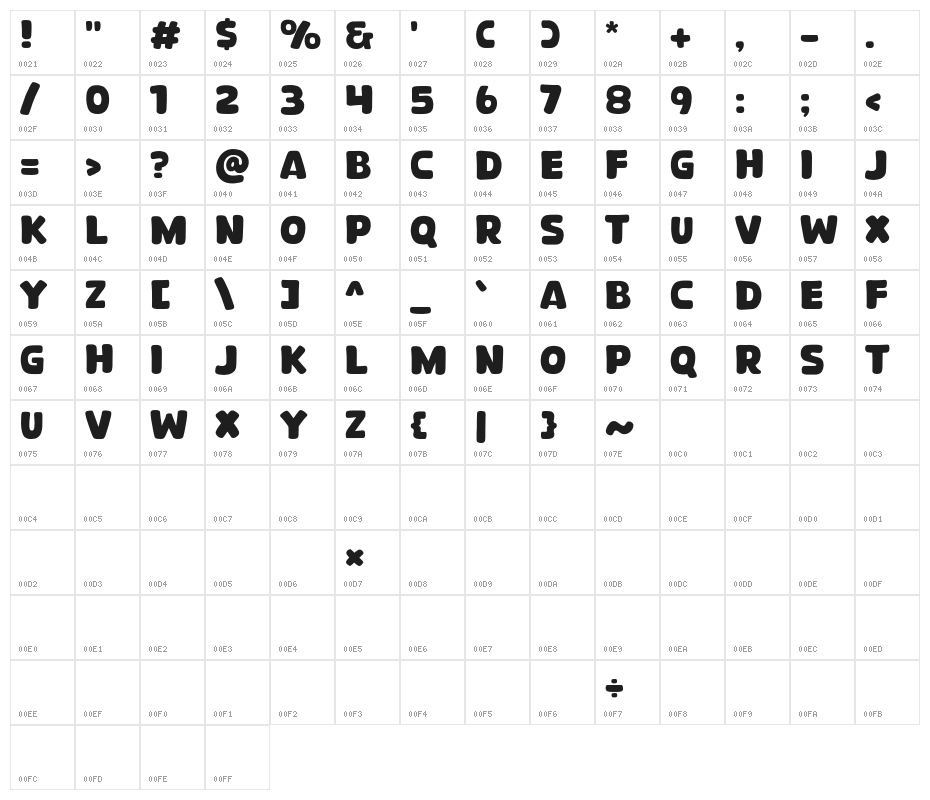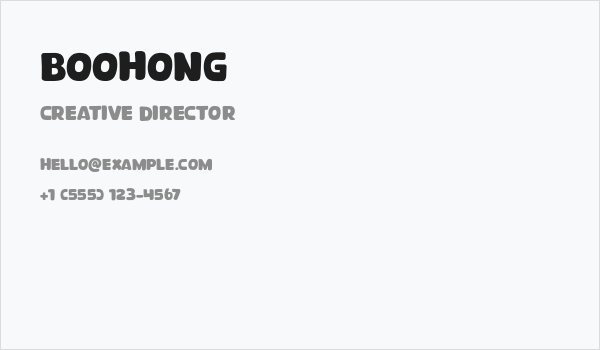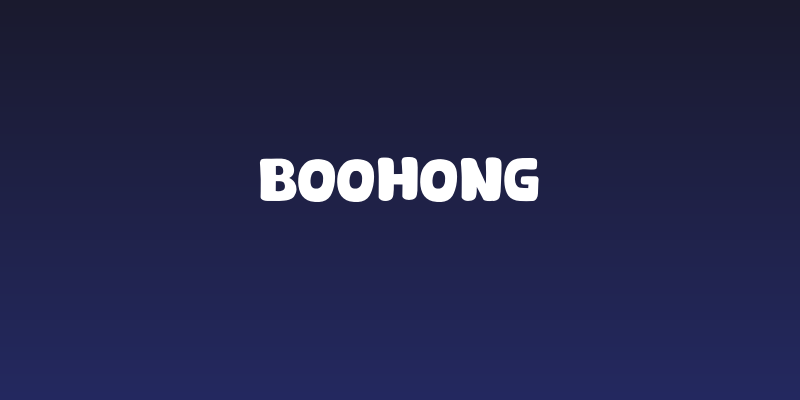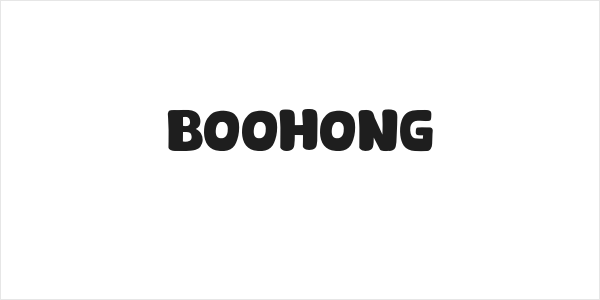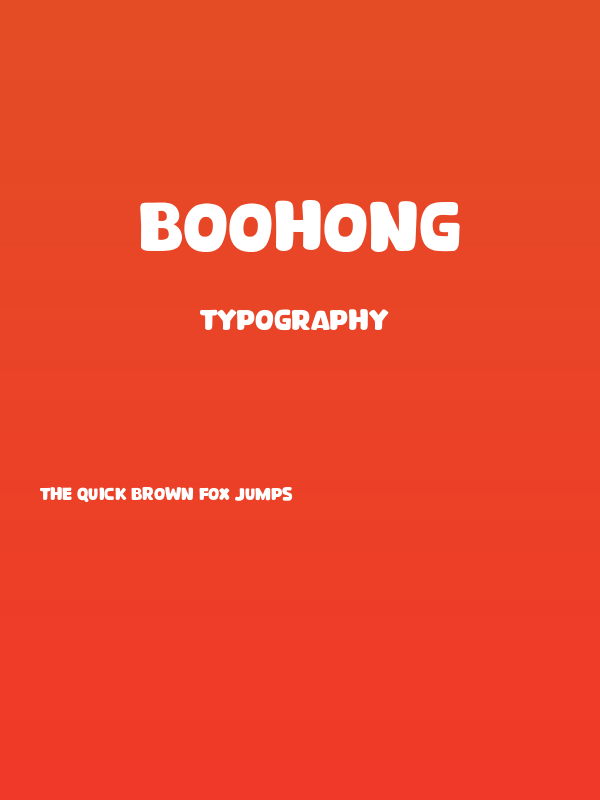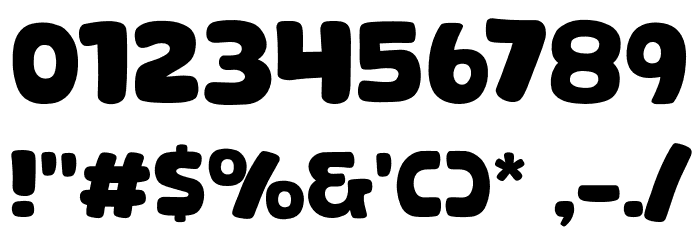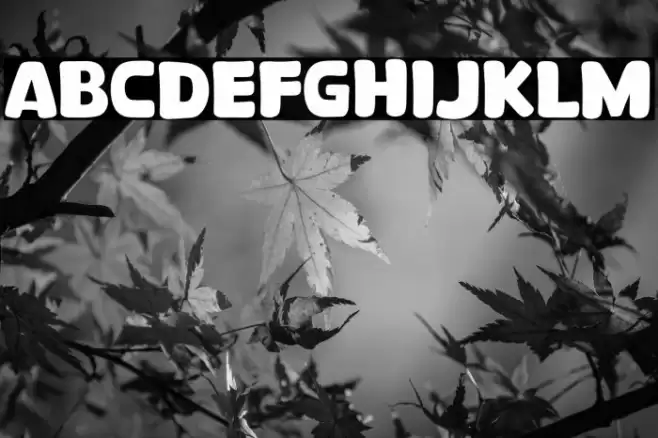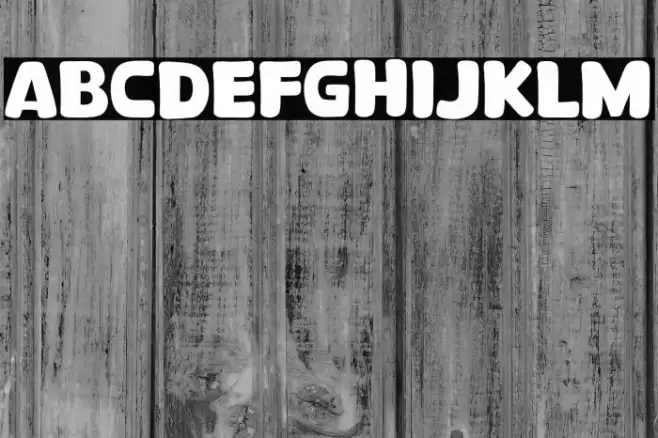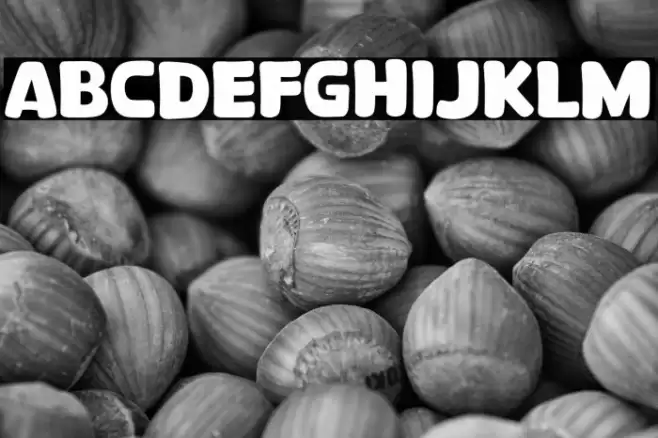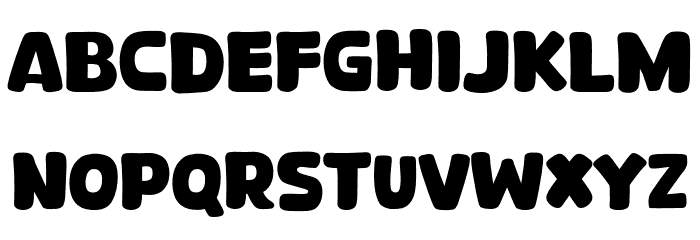
Boohong Font
Boohong Description
This font features bold, rounded characters with a playful and friendly appearance. The letters are uniformly thick, giving them a strong presence on the page. The rounded edges and consistent stroke width contribute to a soft, approachable look, making it ideal for designs that aim to convey warmth and friendliness. The numerals and special characters maintain the same rounded style, ensuring visual harmony across all elements. This font is particularly suitable for projects that require a bold statement without being overly aggressive.
BOOHONG1 UPPERCASE
BOOHONG1 LOWERCASE
BOOHONG1 OTHER CHARS
| Proposed Projects | Ideal for children's books, playful branding, posters, and social media graphics. |